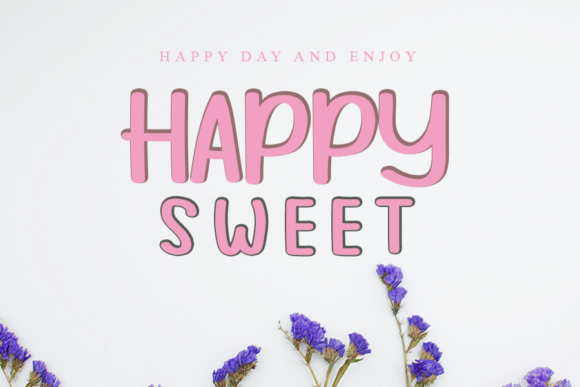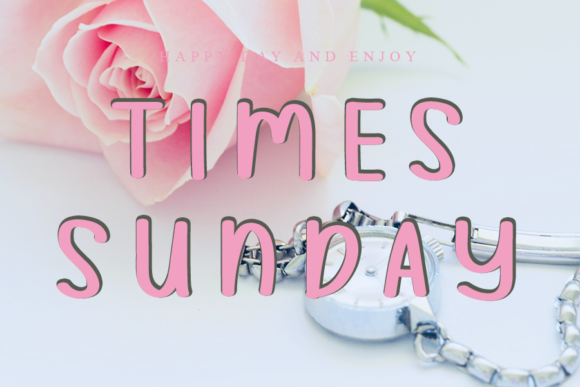
Hello Mommy Font
db-ku.com - Script & Handwritten -- Hello Mommy is a lovely handwritten font, designed with an incredibly sweet feel. Fall in love with its incredibly versatile style and use it to create gorgeous wedding invitations, beautiful stationary art, eye-catching social media posts, and much more!